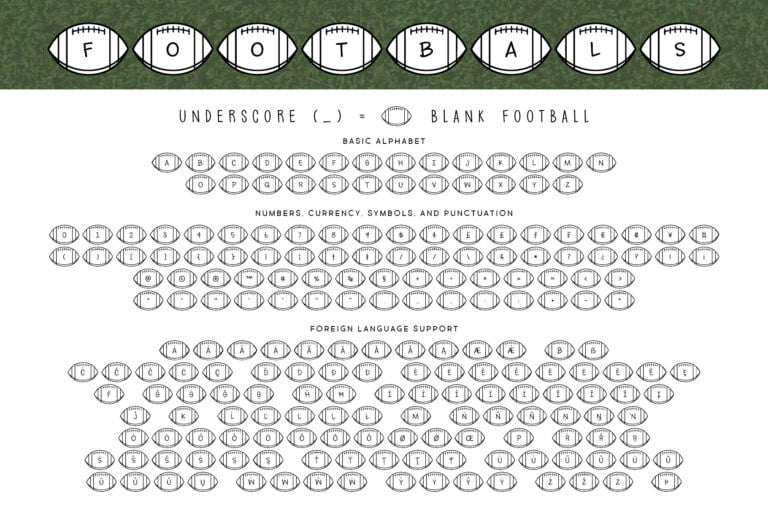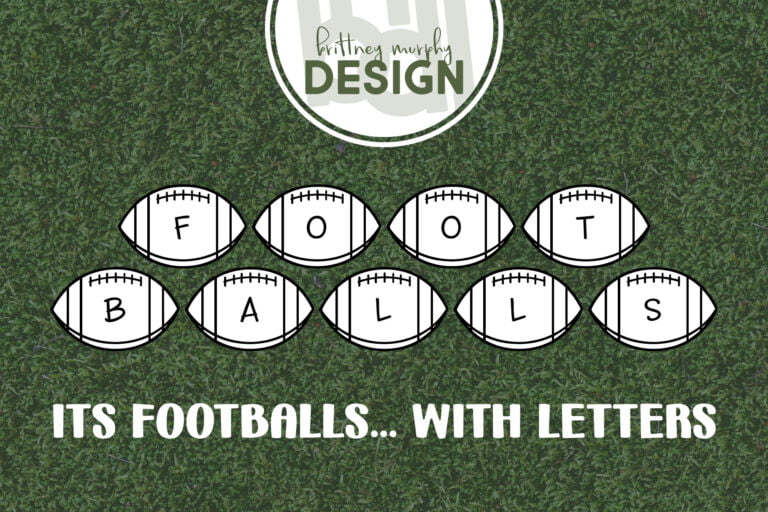
Footballs Font
About the Footballs Font
The Footballs font is a fun picture font created in 2022 by Brittney Murphy Design.
The Footballs font supports most Latin-based languages and the full version includes numbers and punctuation that you will need.
Use the underscore (_) for a blank football.